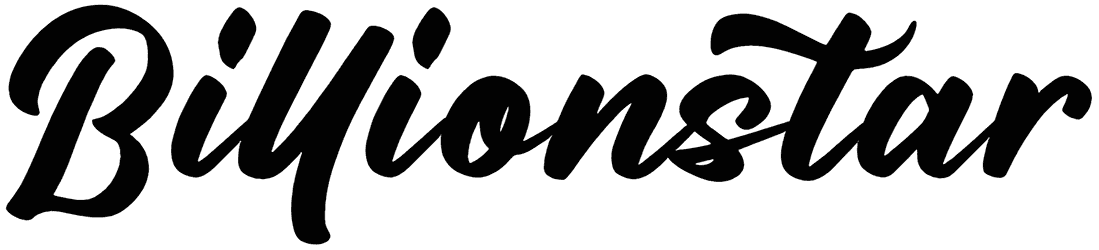
Billionstar Font
Billionstar has thin and thick typefaces modeled after the appearance of words written on paper by a human. This script font has a classic and balanced style that makes the design attractive to you and will add an authentic touch to any text.
Both styles of this calligraphy font can bring a traditional and romantic feel that will be ideal for wedding cards, invitations, love letters, and anywhere human emotions are needed.